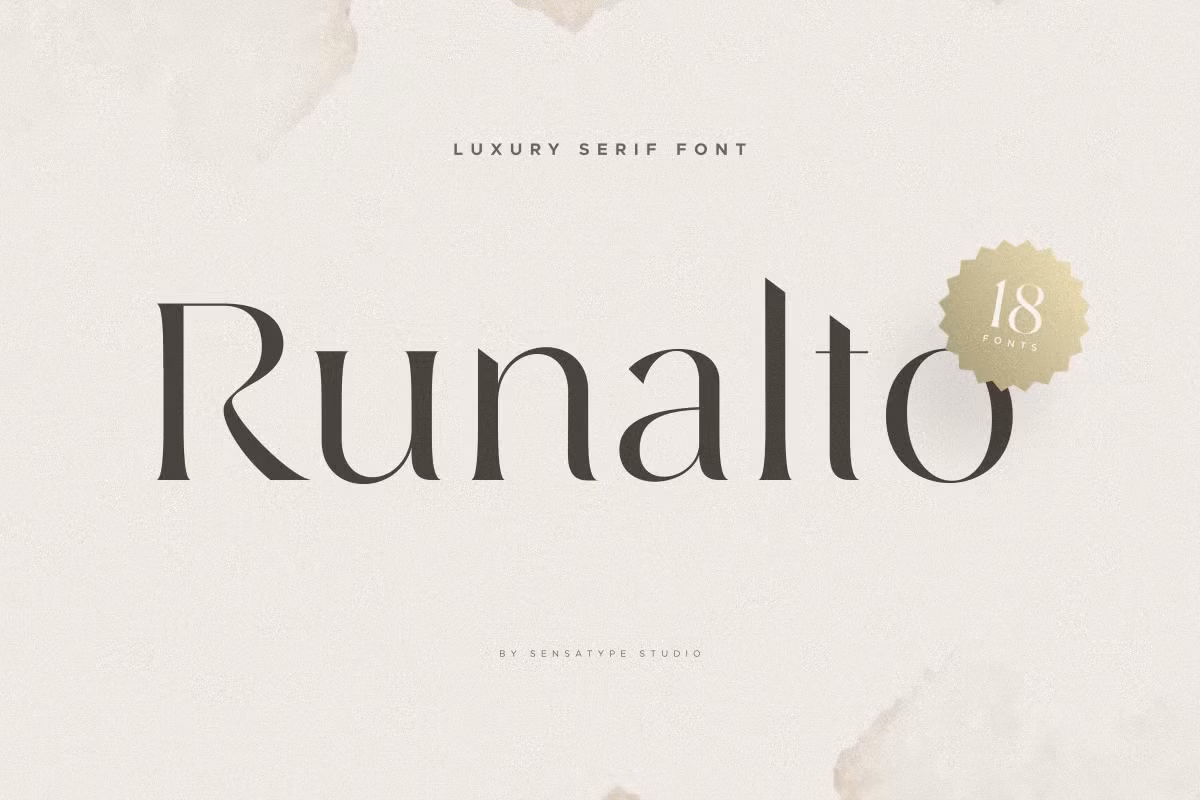
Runalto - 18 Fonts Luxury Serif Font Free Download
Elegant, versatile, and luxurious, Runalto - 18 Fonts Luxury Serif Font Free Download is a comprehensive font family that includes 18 different weights and styles, providing a perfect balance of sophistication and functionality. Ideal for high-end branding, editorial design, websites, packaging, and luxury invitations, this font family allows for flexibility in creating professional and upscale designs.
Runalto’s refined serifs, smooth curves, and varied weights make it a go-to choice for both bold headlines and legible body text, offering both modern flair and traditional elegance. Whether you are designing a luxury brand, premium product, or elegant publication, this font family gives your projects a high-end, polished look.